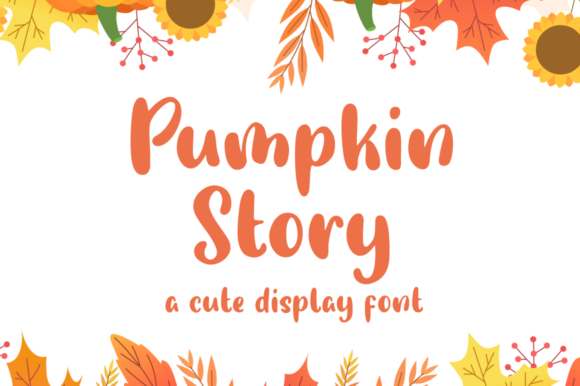
Welcome to the enchanting world of Pumpkin Story Font, a whimsical and heartwarming script font family that will add a touch of magic to all your creative endeavors. Inspired by the vibrant hues of autumn and the joyful spirit of the holiday season, Pumpkin Story Font is the perfect choice for adding a festive flair to your designs.
With its playful curves and charming imperfections, Pumpkin Story Font captures the essence of handwritten notes, evoking a sense of warmth and nostalgia. Each character exudes a unique personality, adding a touch of delight to every word and phrase. Whether you're crafting heartfelt Christmas cards, eye-catching Thanksgiving invitations, or simply adding a touch of whimsy to your everyday projects, Pumpkin Story Font is guaranteed to leave a lasting impression.
Immerse yourself in the magic of Pumpkin Story Font and let your creativity soar. Its versatility knows no bounds, allowing you to effortlessly create stunning logos, captivating social media posts, cheerful website designs, and more. Whether you're a seasoned designer or just starting your creative journey, Pumpkin Story Font is the perfect companion for adding a touch of enchantment to your projects.
So, embark on a delightful adventure with Pumpkin Story Font and let your imagination run wild. From heartwarming holiday greetings to enchanting invitations, Pumpkin Story Font will transform your words into works of art. Discover the magic within and unleash your creativity today!